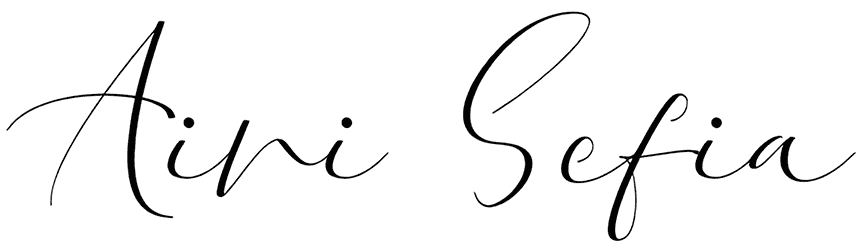
Aini Sefia Font
Don’t even think of letting this beneficial, satisfying handwritten font pass you by, whether you keep a small business or ask for a game-changing font to beef up the brand, or run an advertising movement on your hands that demands an effective font to attract attention.
Consider Aini Sefia to overcome all your creation schemes, give off a friendly and ingenious spirit, and embellish your displays with a lavish mood, and receive the most delightful feedback with the manuscript look.